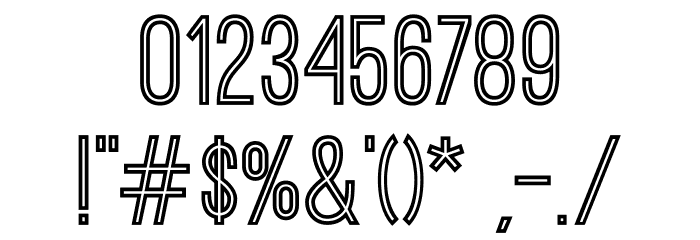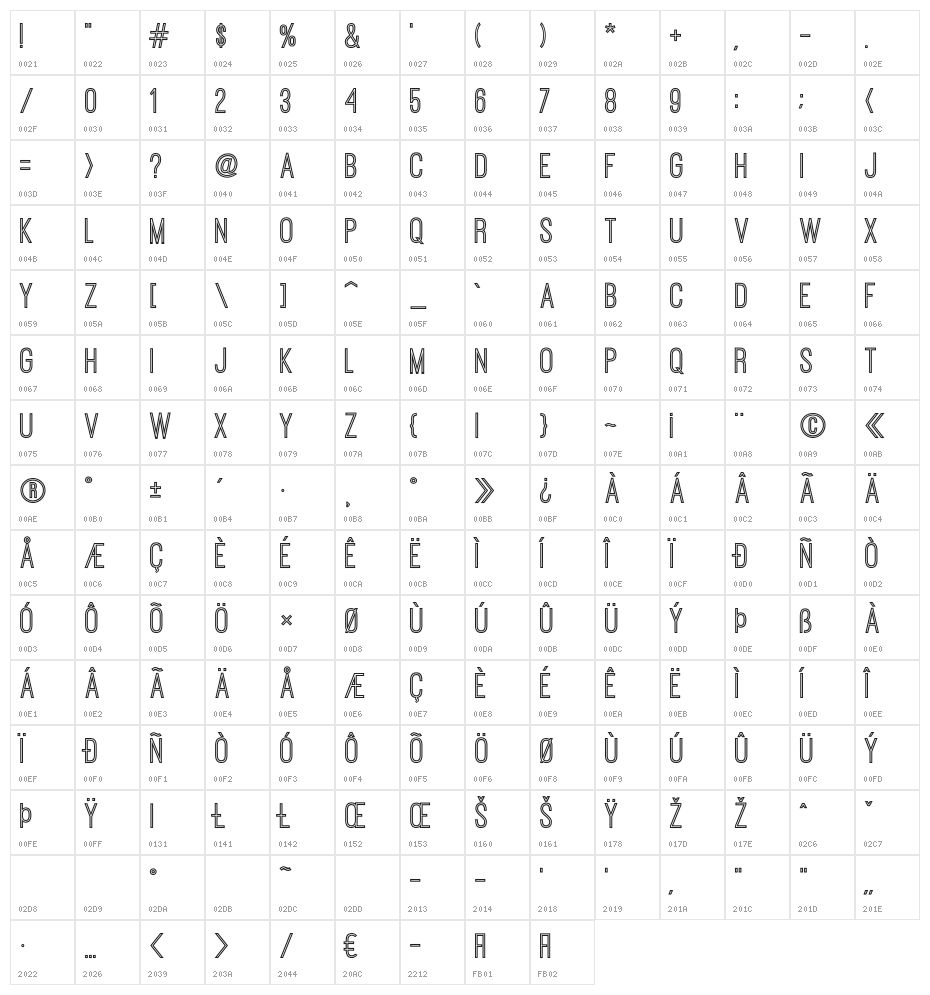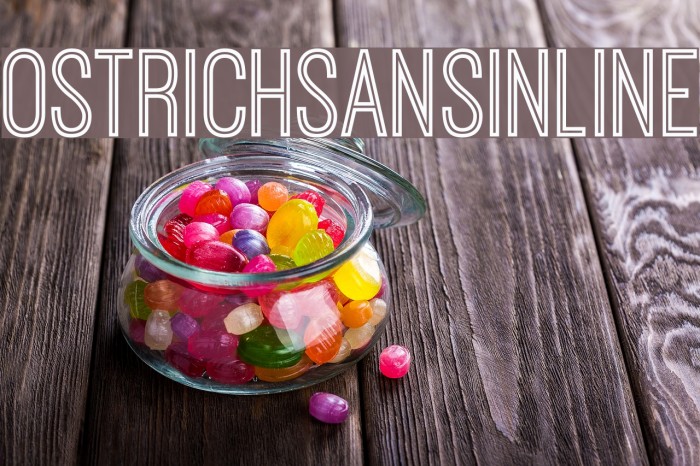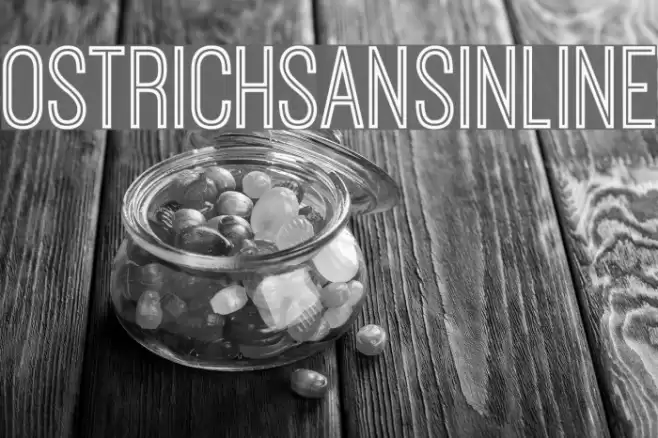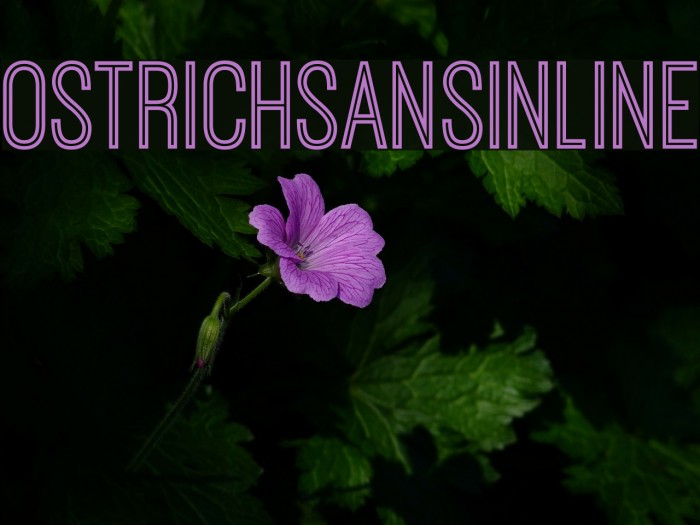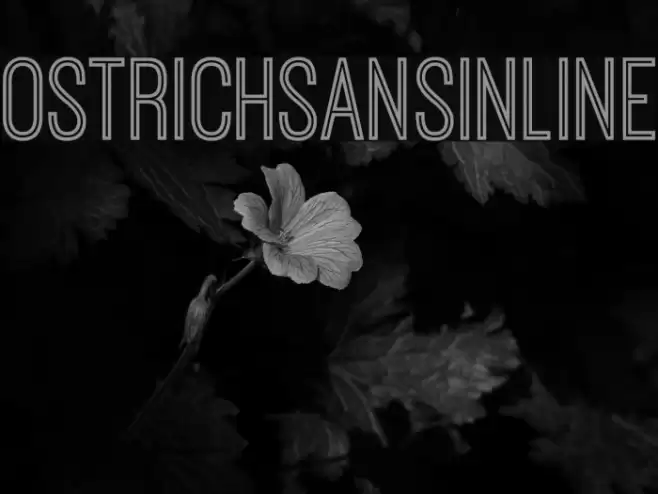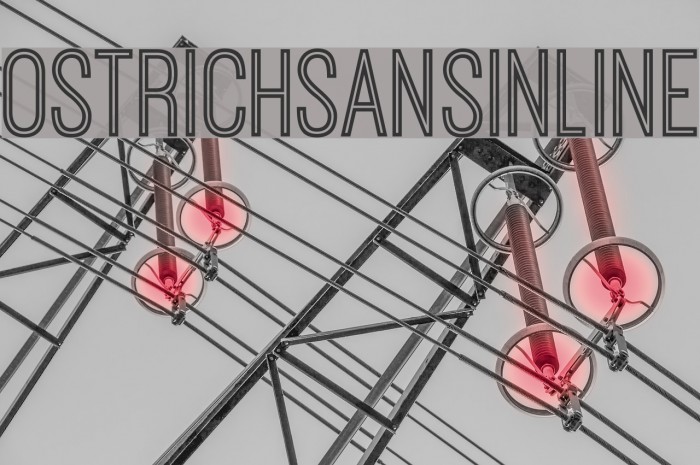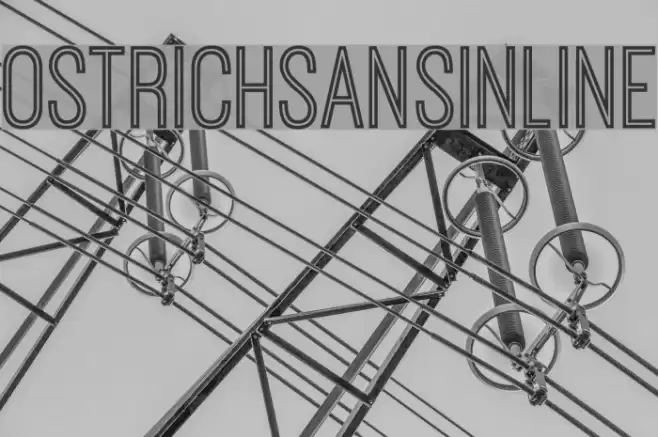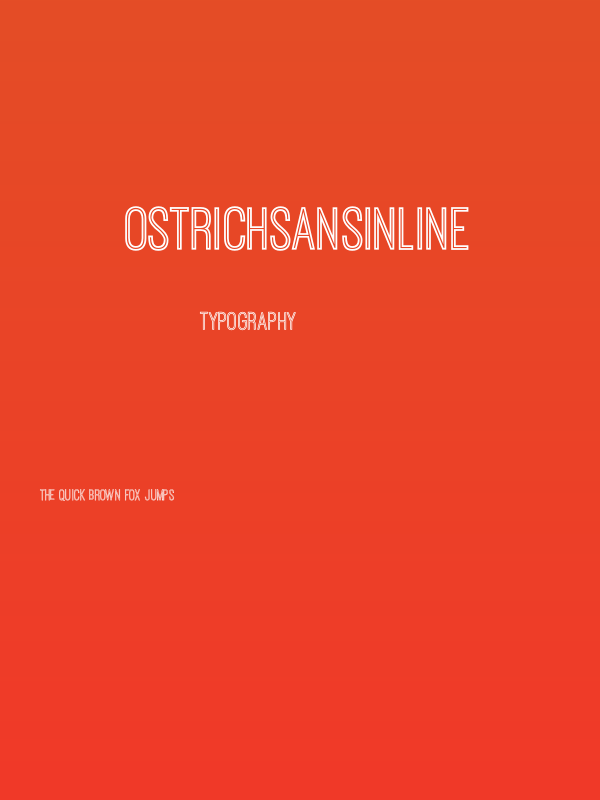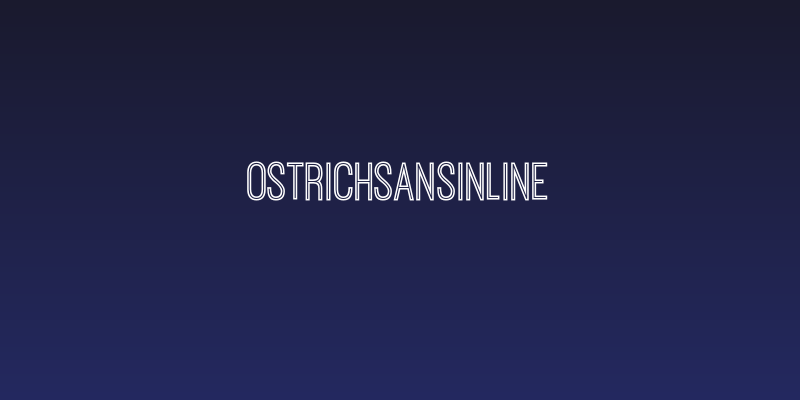
OstrichSansInline Font
OstrichSansInline Description
This font features a modern and sleek design with a distinctive inline style. The characters are uppercase and numerals, each outlined with a thin line that gives an open and airy feel. The geometric shapes and clean lines create a contemporary look, making it suitable for various design applications. The font's structure is uniform, with consistent stroke widths and a balanced appearance. Its minimalist aesthetic is enhanced by the absence of serifs, contributing to a streamlined and elegant presentation.